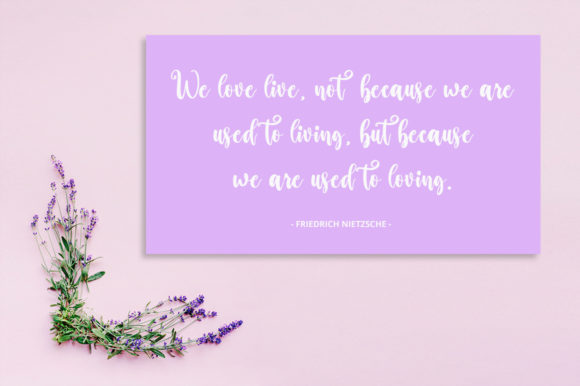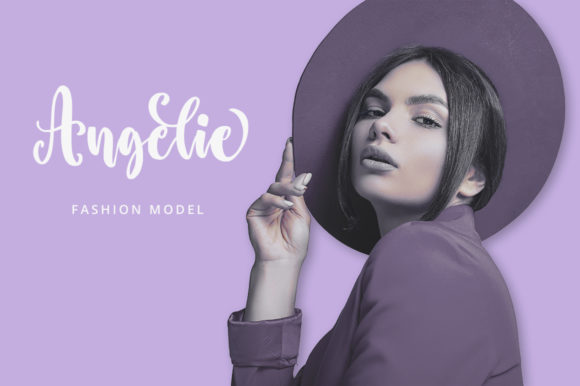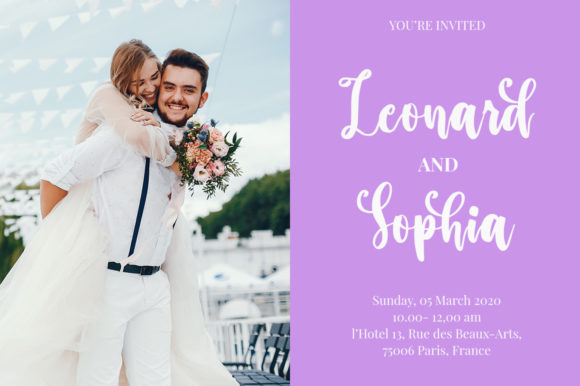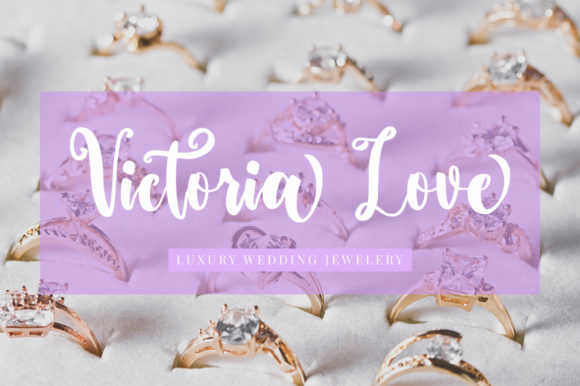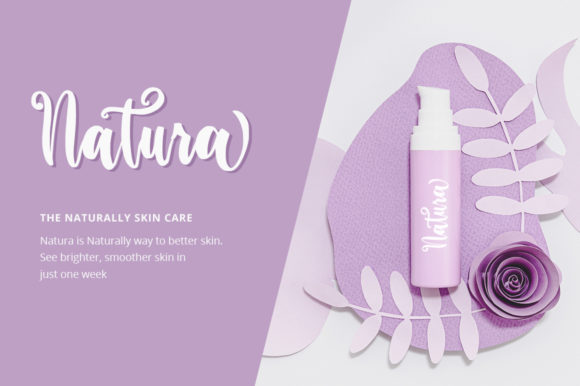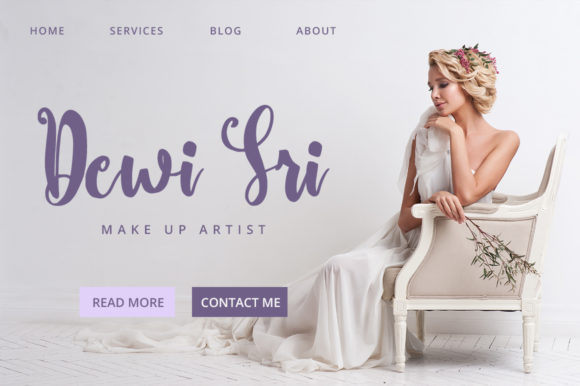
Betterday Font: The Ultimate Choice for Creative Projects
Are you a designer, crafter, or DIY enthusiast looking for a font that can add a personal touch to your creative projects? Look no further than the Betterday Font! This cute and casual handwritten font is designed to bring a friendly feel to your designs, making it perfect for a wide range of applications.
The Features of Betterday Font
Betterday Font is a script font that boasts an incredibly friendly feel, making it ideal for designs that require a personal touch. Some of its key features include:
- Gorgeous Swashes: Betterday Font features beautiful swashes that can add a touch of elegance to your designs. These swashes can be used to create stunning headings, titles, and even social media posts.
- Ligatures: The font also includes ligatures, which are special characters that combine two or more letters to create a unique and beautiful effect. Ligatures can add a touch of sophistication to your designs and make them stand out.
- Cute and Casual: Betterday Font has a playful and casual feel, making it perfect for designs that require a friendly and approachable tone.
- Versatile: This script font is incredibly versatile and can be used for a wide range of applications, from Instagram posts to calligraphy scripts for DIY projects.
Uses of Betterday Font
Betterday Font is a versatile font that can be used for a variety of creative projects. Here are some ideas to get you started:
- Instagram Fonts: Use Betterday Font to create stunning Instagram posts that stand out from the crowd. You can use the font to create beautiful quotes, captions, and even stories.
- Calligraphy Scripts: Betterday Font is perfect for calligraphy scripts, making it a great choice for DIY projects. You can use the font to create beautiful hand-lettered signs, cards, and even wall art.
- Branding and Packaging: The font can also be used for branding and packaging designs, adding a personal touch to your products and making them stand out.
- Stationery and Invitations: Use Betterday Font to create beautiful stationery and invitations that are sure to impress.
Why Choose Betterday Font?
So, why choose Betterday Font over other fonts? Here are just a few reasons:
- Unique and Creative: Betterday Font is a unique and creative font that can add a personal touch to your designs.
- Easily Readable: The font is easily readable, making it perfect for designs that require a clear and concise message.
- High-Quality: Betterday Font is a high-quality font that is designed to deliver exceptional results.
- Versatile: The font is incredibly versatile and can be used for a wide range of applications.
Tips for Using Betterday Font
Here are a few tips for using Betterday Font:
- Experiment with Swashes: Don’t be afraid to experiment with the swashes and ligatures in Betterday Font. They can add a touch of elegance and sophistication to your designs.
- Mix and Match: Try mixing and matching Betterday Font with other fonts to create a unique and creative look.
- Pay Attention to Size: Make sure to pay attention to the size of the font. Betterday Font can be used at a variety of sizes, but it’s best to use it at larger sizes to take advantage of its beautiful swashes and ligatures.
In conclusion, Betterday Font is a cute and casual handwritten font that is perfect for designers, crafters, and DIY enthusiasts. Its gorgeous swashes and ligatures make it incredibly versatile, and it’s easy to use for a wide range of applications. Whether you’re looking for fonts for Instagram or calligraphy scripts for DIY projects, Betterday Font is the ultimate choice.